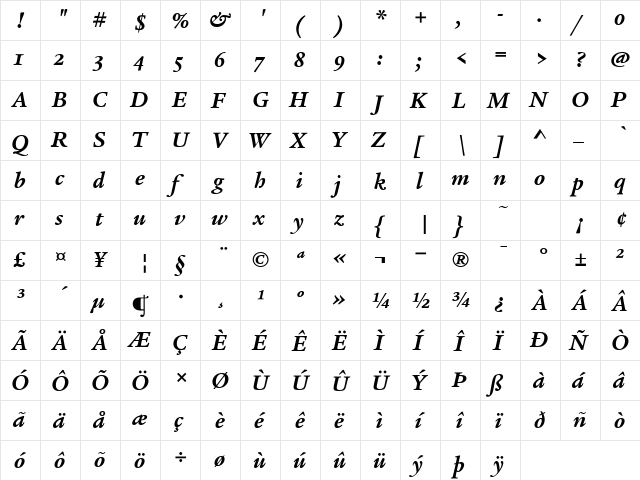
LegacySerifITCOS BoldItalic
Design Context for LegacySerifITCOS Typeface
LegacySerifITCOS brings classic typographic sensibility to the table — its serifs and measured letterforms reflect centuries of print heritage. The dynamic lean of this cut emphasises speed and emphasis in any layout. The heavy weight commands attention and anchors typographic hierarchies.
Pro Tip: Set LegacySerifITCOS with slightly loose tracking in headlines to let each letterform's detail read clearly at display sizes.